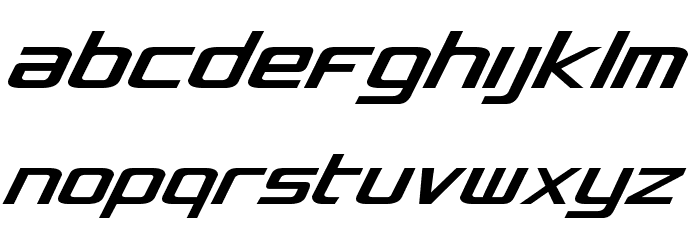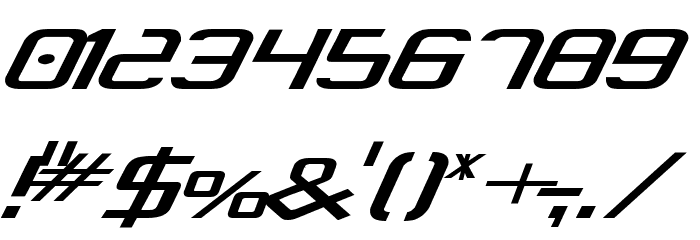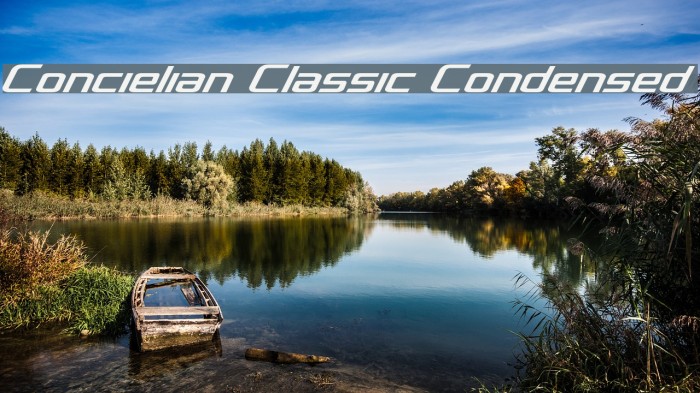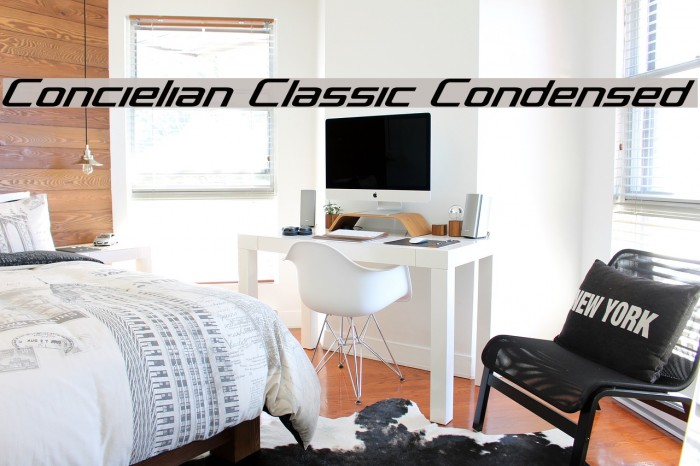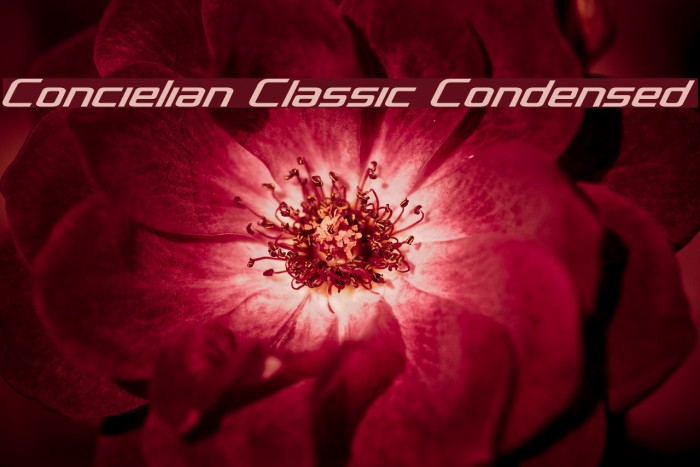
Concielian Classic Condensed Font
This font features a sleek, modern design with a condensed structure that gives it a streamlined appearance. The characters are slightly italicized, adding a sense of motion and dynamism. The strokes are consistent in weight, providing a uniform look across all characters. The uppercase and lowercase letters maintain a cohesive style, with angular edges and a futuristic feel. The numerals and special characters are designed to match the overall aesthetic, ensuring versatility in various design applications.
A sleek, modern, and condensed font with a dynamic, italicized style.
- Proposed Projects: Ideal for branding projects, technology-related designs, and modern advertising campaigns.
- Use Case: Logos, Headlines, Branding